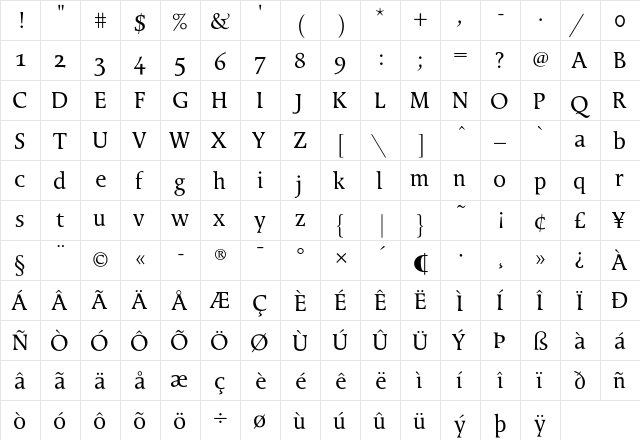
Gancello Regular
Design Context for Gancello Typeface
Gancello offers clean, dependable letterforms without strong stylistic allegiance, making it a practical choice for designers who need flexibility.
Pro Tip: Use Gancello in both headline and body roles to test its range before committing to a single application.